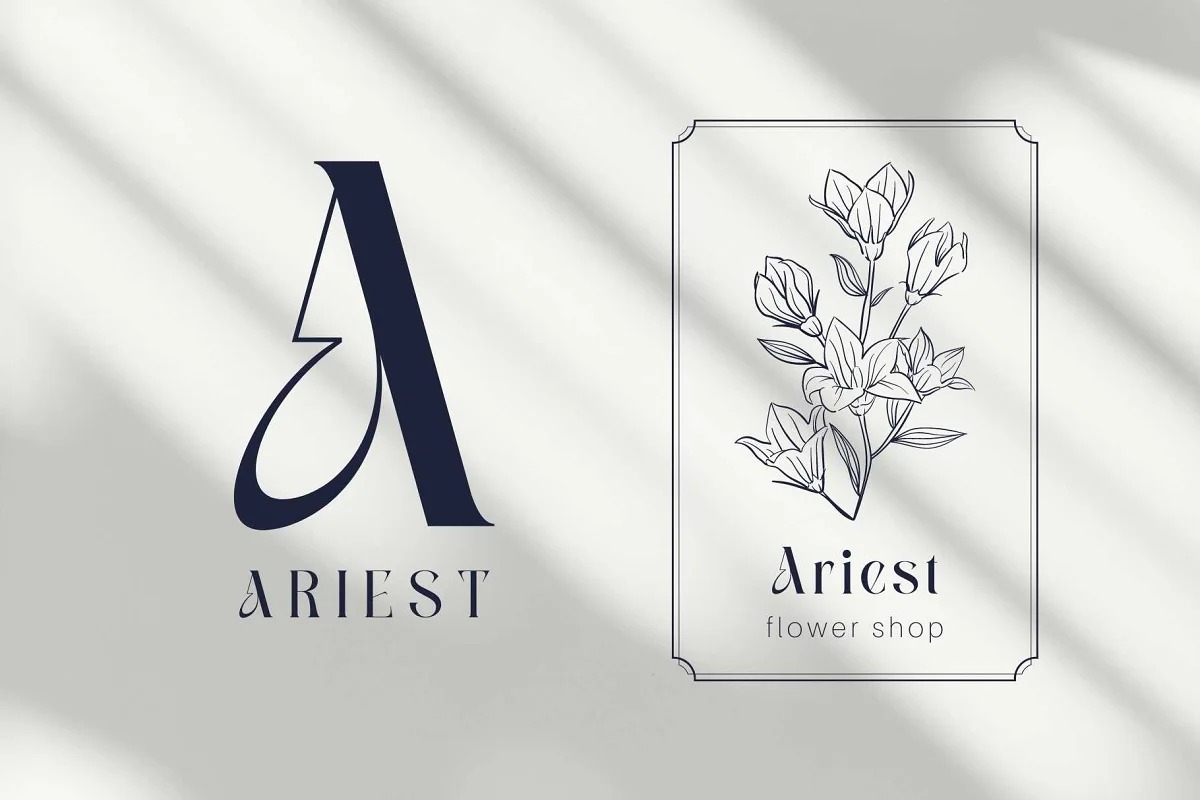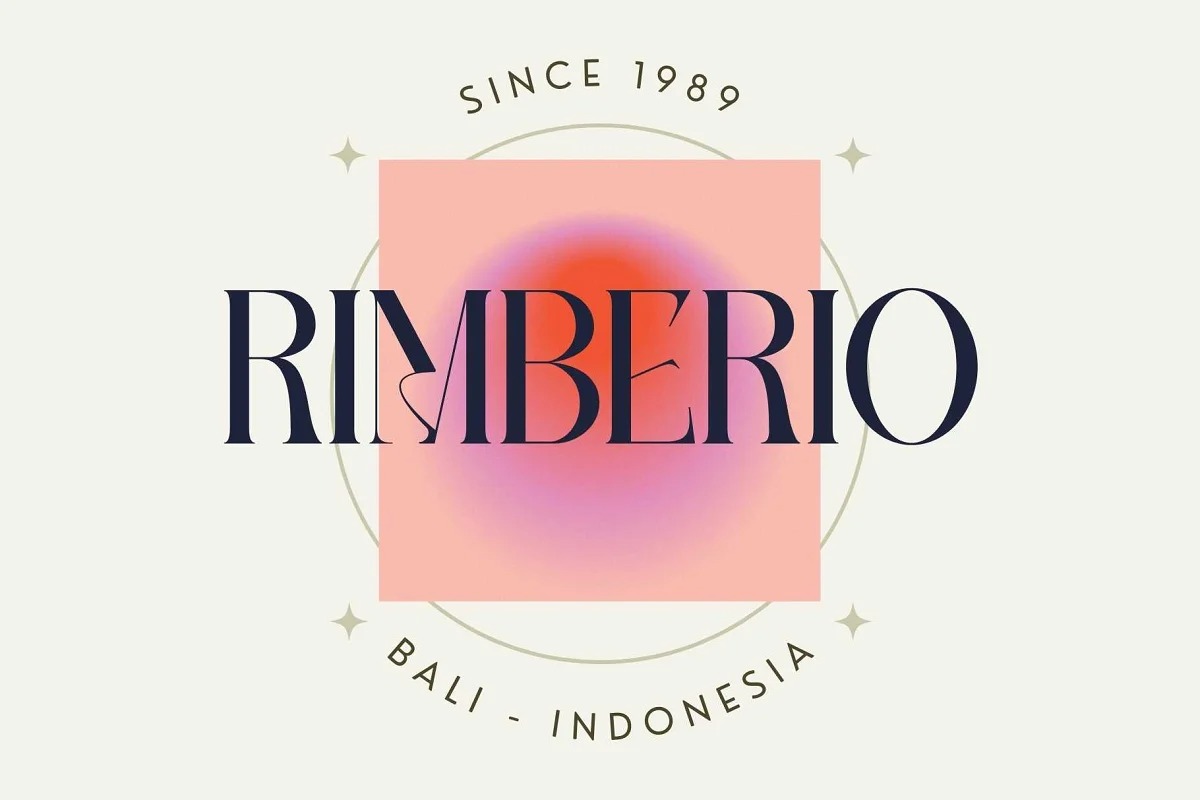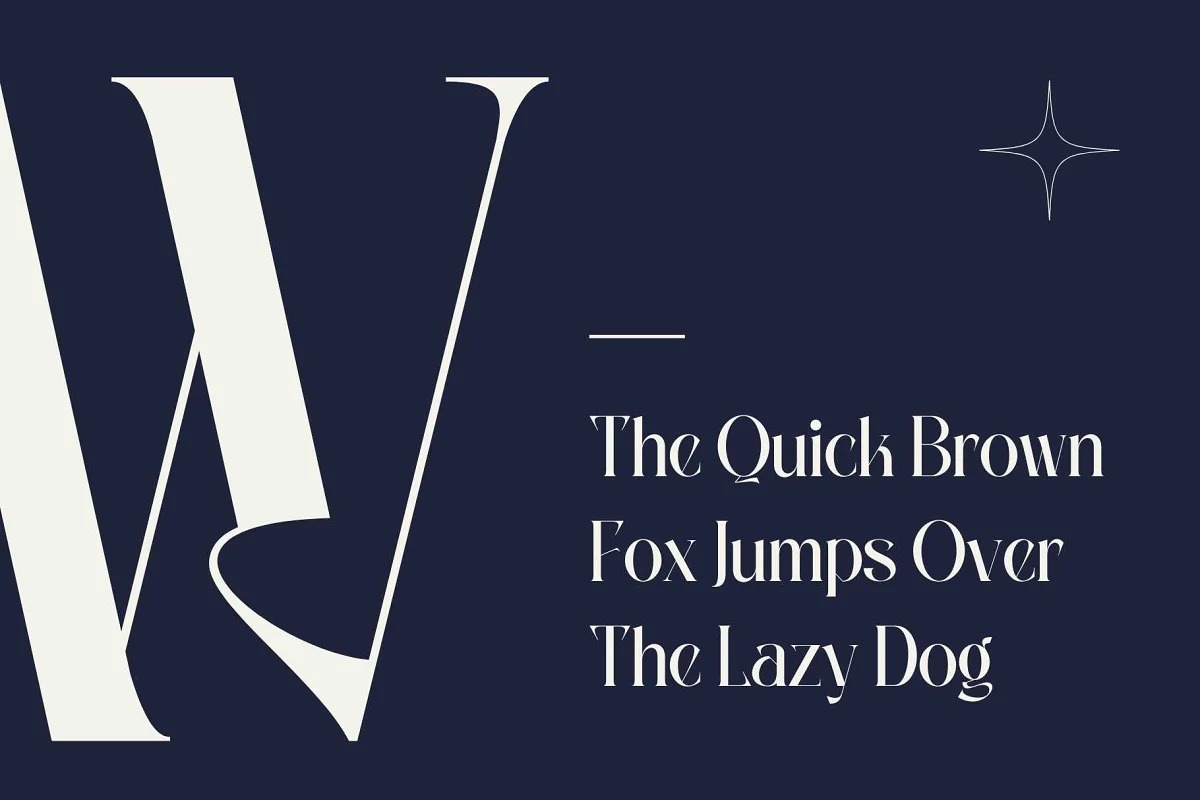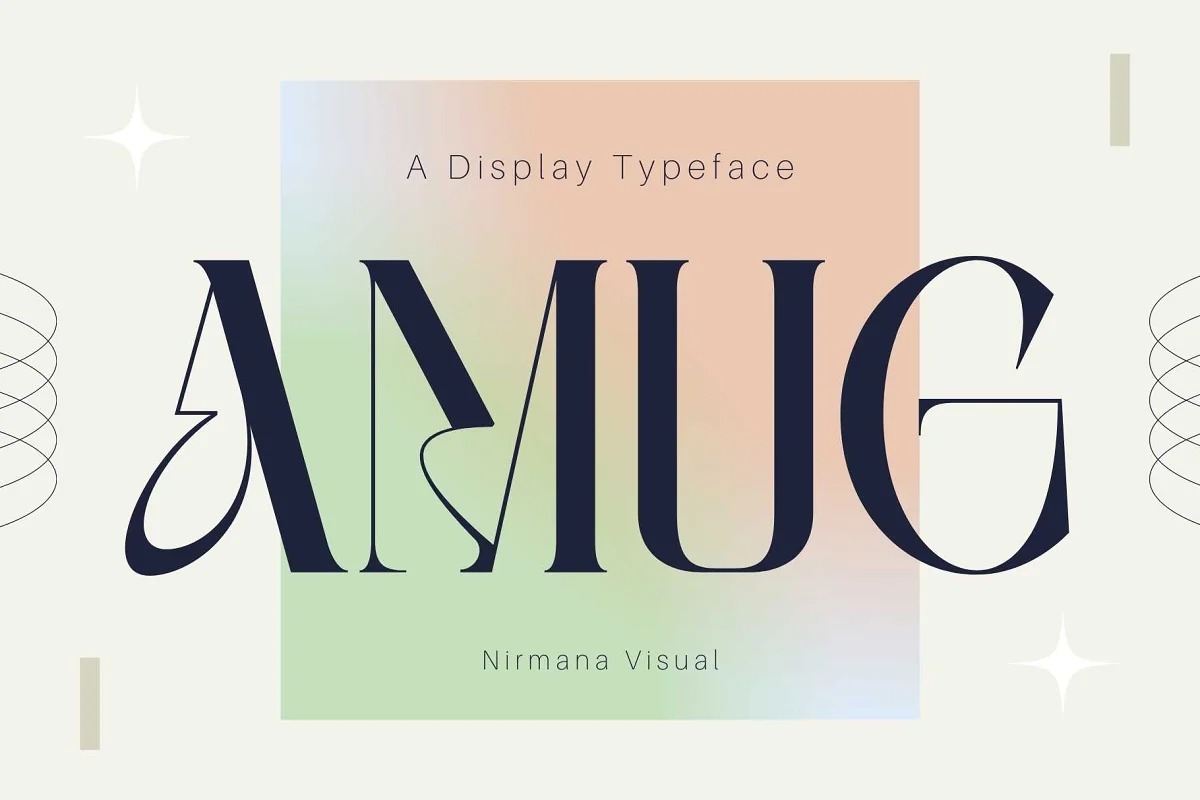
Amug Serif Font
This is a premium display serif typeface that conveys a charming elegance but powerful like a graceful wild horse that can be applied to many areas of design. Amug offers beautiful typographic harmony for a diversity of design projects, including logos & branding, social media posts, advertisements & product designs.